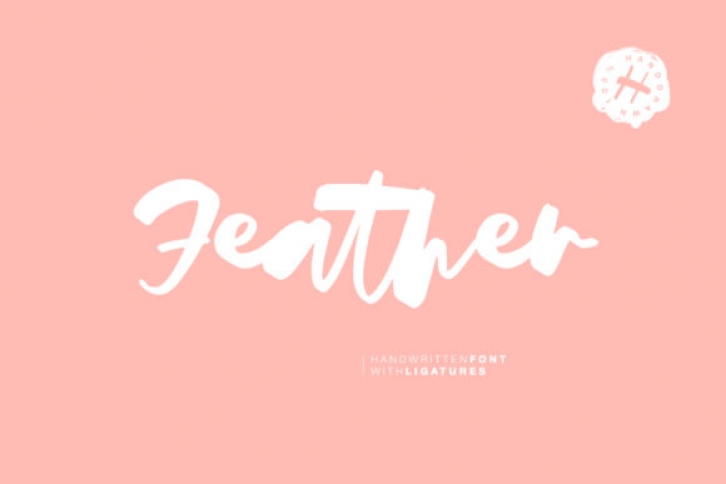
The Feather is an amazing font with unpredictable stroke width. It has a fresh and interesting look and is perfect for holiday invitations, wedding invites and stationary, logos, and more!